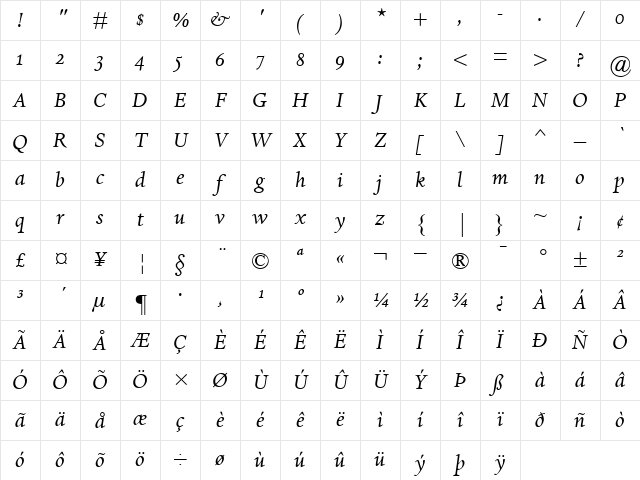
DanteMTOldstyleFigures RomanItalic
Style: RomanItalic
DanteMTOldstyleFigures Family
Complete DanteMTOldstyleFigures RomanItalic glyph index. Displaying only characters natively supported by DanteMTOldstyleFigures RomanItalic font.
Design Context for DanteMTOldstyleFigures
DanteMTOldstyleFigures carries the refined structure of traditional serif typography, with bracketed terminals and considered proportions that communicate credibility and craft. The slanted form adds forward momentum and visual energy.